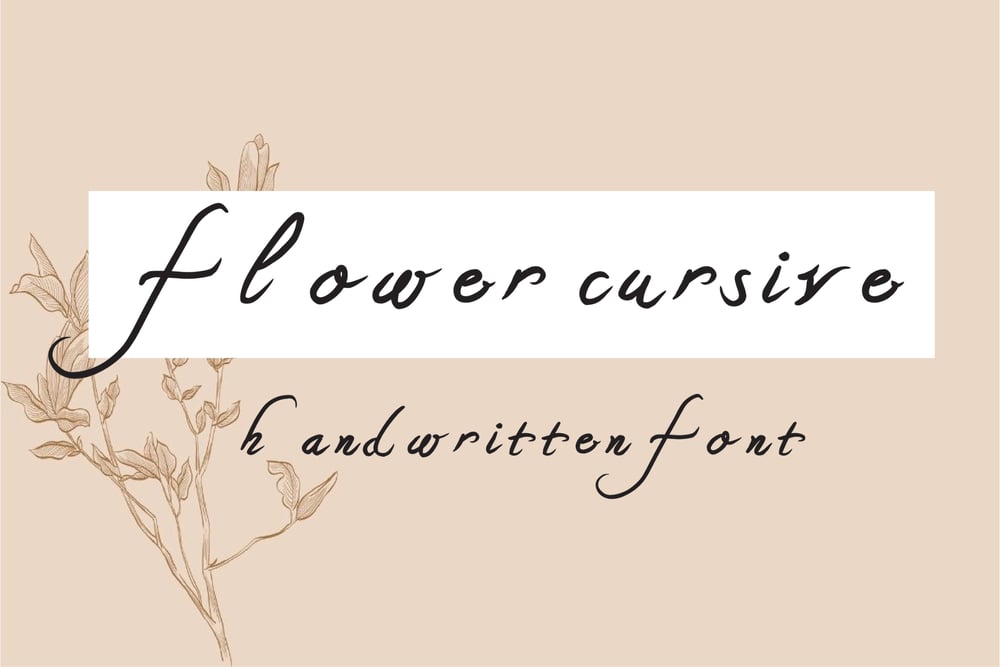
Flower Cursive Handwritten font
Flower Cursive Handwritten font Font Family was designed by published by Numoofun Fount. Flower Cursive Handwritten font contains 1 styles and family package options. Flower Cursive – Handwritten Font is a beautifully crafted typeface that blends elegance with a natural, personal touch. Its delicate, flowing script exudes sophistication, making it perfect for projects requiring a sense of romance and refinement. Hand-drawn with precision, this font radiates authenticity and uniqueness, setting it apart from generic designs. The graceful curves and floral-inspired accents enhance its charm, making it ideal for wedding invitations, branding, greeting cards, and social media posts. Versatile yet distinctive, Flower Cursive captures the beauty of handwritten artistry, adding warmth and personality to any design. It’s the perfect choice for those seeking timeless elegance.FeaturesSupports fast responseEasy to use Includes uppercase and lowercase lettersContains numbers and punctuationPerfect for: Logos, branding, wedding invitations, farmhouse decor, signs, crafting, mugs, shirts, pantry labels, stickers, business cards, greeting cards, posters, social media, planners, and websites.